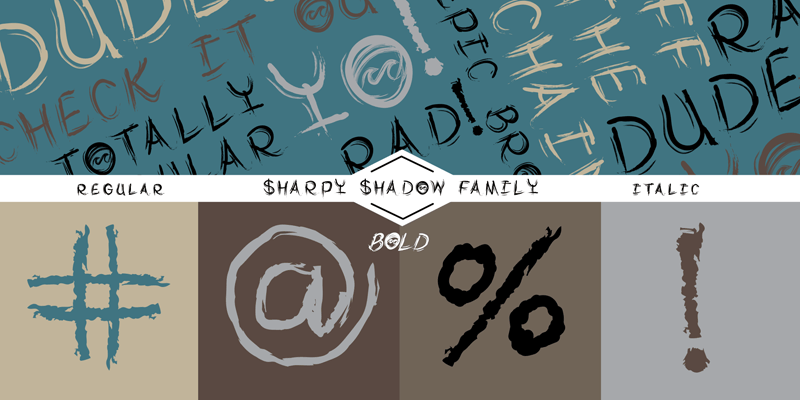
Sharpy Shadow is a handwritten marker styled font with a sketchy and edgy personality. I purposely crafted this font to be used across many platforms including street-wear, "alternative" sports, magazines, posters, branding and logos. Make your project or design stand out from the rest. Keep an eye out for the paid commercial version on creativemarket.com - ALL donations are very much appreciated! Donate through DaFont or directly through your PayPal account to the e-mail address: scottmcclymonds@gmail.com |